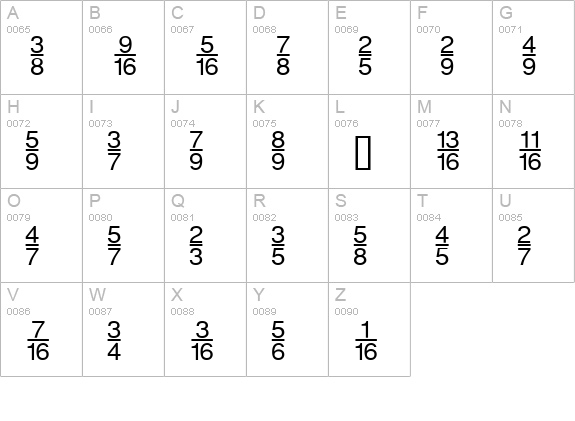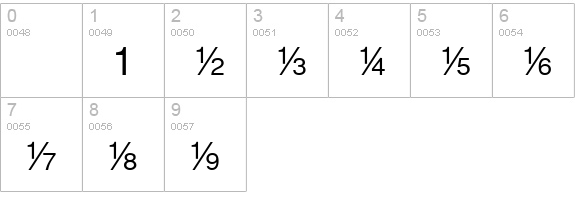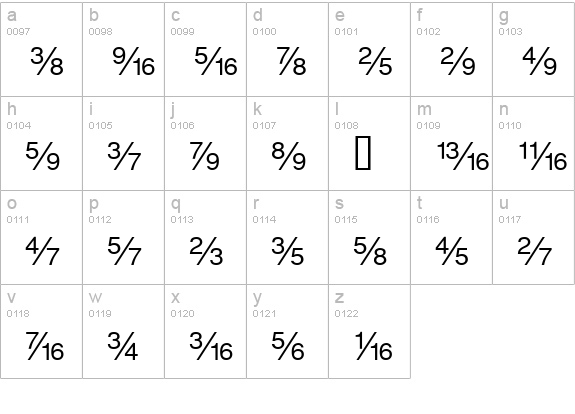
SansFractions Font Details
Introducing SansFractions, a modern and versatile font that is perfect for all your design needs. With its clean lines and elegant curves, SansFractions adds a touch of sophistication to any project. Whether you are creating a logo, designing a website, or crafting a poster, this font will make your text stand out and grab attention. What sets SansFractions apart is its unique ability to seamlessly integrate fractions into your designs. Gone are the days of awkwardly stacked numbers and slashes. With SansFractions, fractions are beautifully incorporated into the font itself, creating a seamless and visually appealing result. But that's not all - SansFractions is also free! Yes, you read that right. This incredible font is freely available to download at FontsMarket.com. Say goodbye to expensive licensing fees and restrictions. Now, you can add this stunning font to your collection without breaking the bank. Whether you're a professional designer or a hobbyist, SansFractions is a must-have font in your toolbox. Its versatility and modern aesthetic make it suitable for a wide range of projects, from branding and advertising to editorial layouts and social media graphics. So why wait? Head over to FontsMarket.com now and download SansFractions for free. Elevate your designs with this outstanding font and take your creativity to new heights.